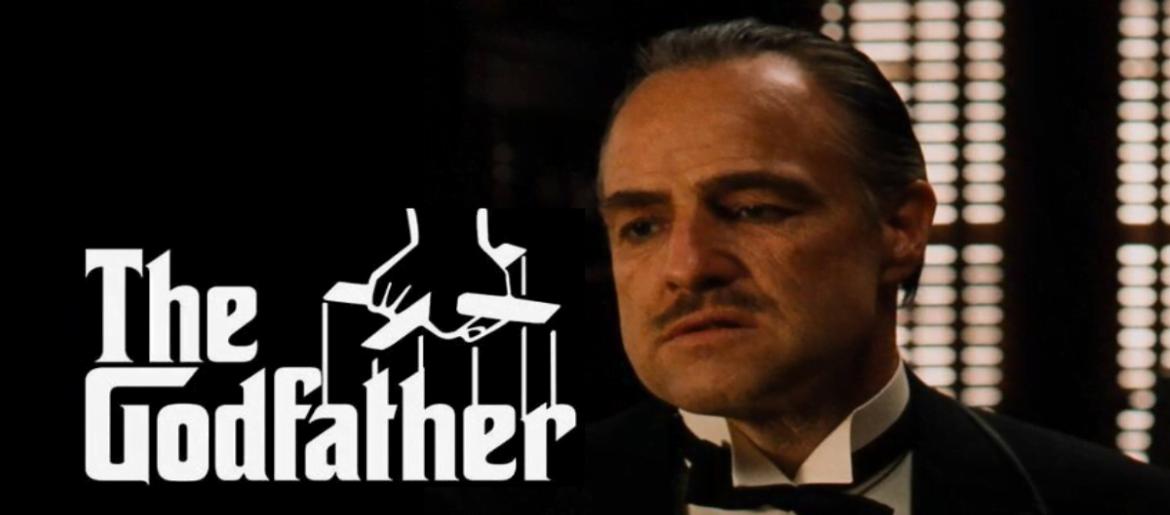
The Godfather Font
The Godfather font stands as one of cinema’s most recognizable typographic creations. The distinctive lettering immediately evokes the powerful atmosphere of Francis Ford Coppola’s 1972 masterpiece. Characterized by its dramatic puppet strings and bold characters, this typeface has become synonymous with mafia storytelling and classic Hollywood grandeur.
Corleone Font
Drawing inspiration from Mario Puzo’s acclaimed novel about the Corleone crime family, the lettering embodies sophistication, power, and enduring style. Designers and film lovers frequently seek out this distinctive typography for promotional materials, tribute artwork, and creative ventures that demand the same commanding presence as the iconic film.
While Paramount Pictures never released an official version, the widely-used Corleone Font faithfully recreates the original movie branding. An alternative iteration, Corleone Due, offers additional stylistic elements while maintaining the essential character. Both versions are available at no cost for personal projects and remain popular among creators seeking to channel that authentic organized crime aesthetic.
The enduring popularity of this typography demonstrates how visual design can achieve the same iconic status as the narrative it represents. Like the Corleone saga’s permanent place in film history, this lettering continues to influence designers across decades, maintaining its powerful appeal through generations of creative work.